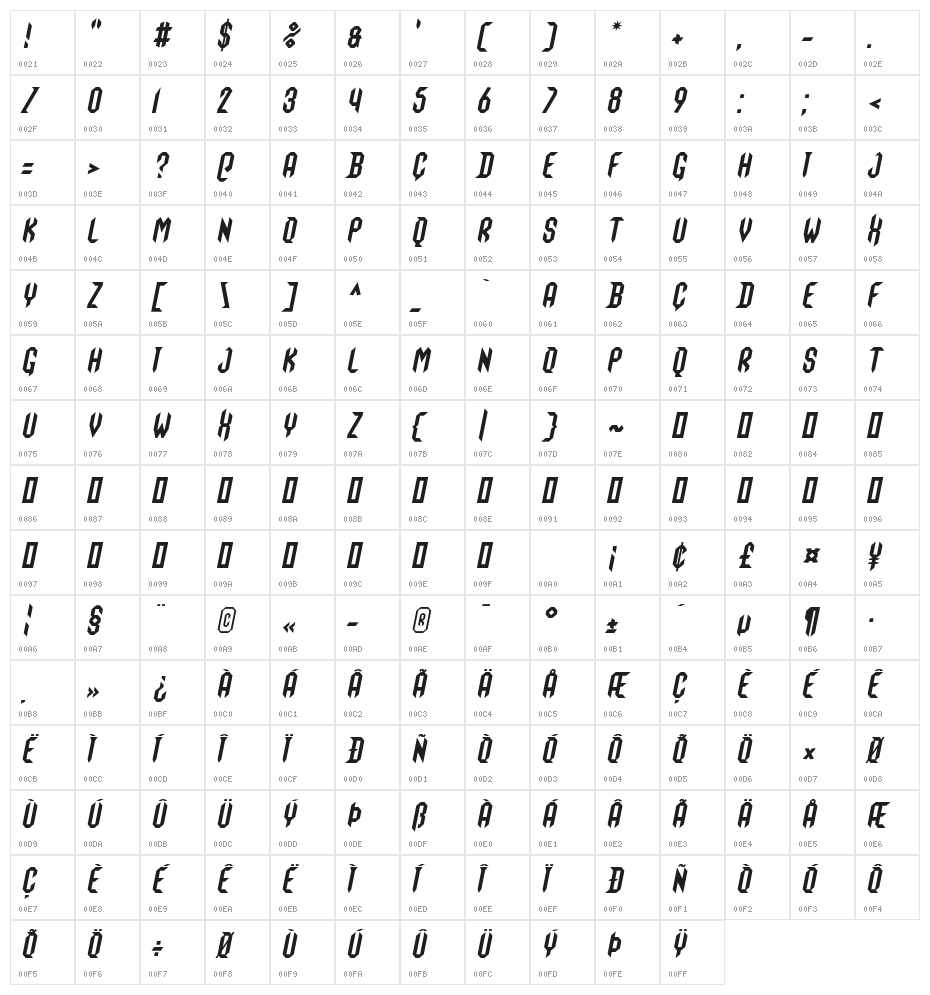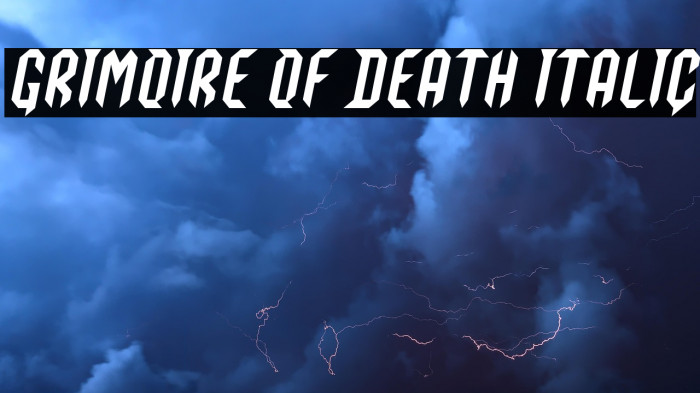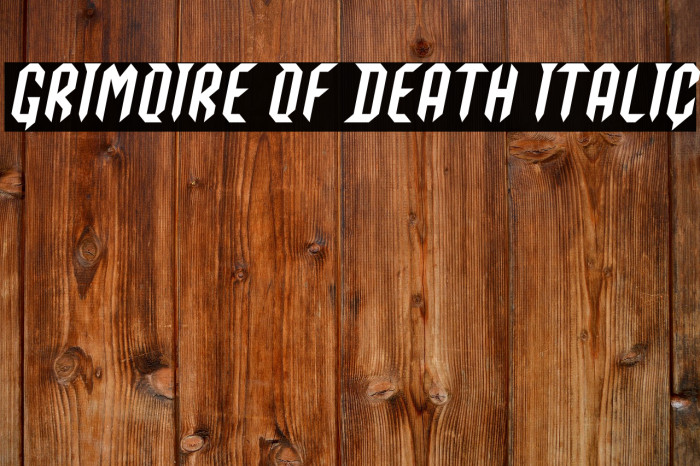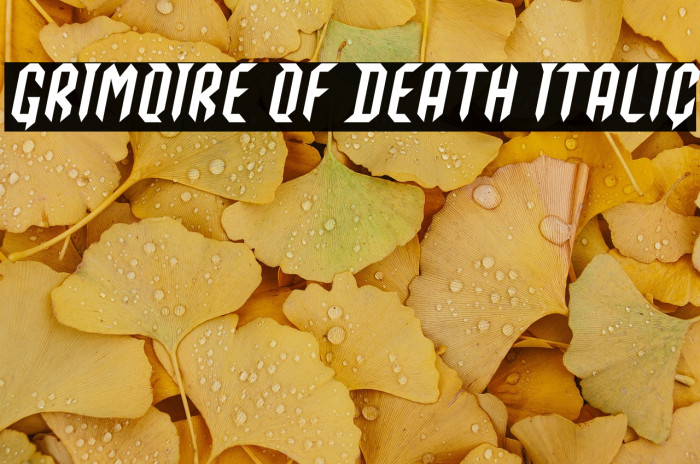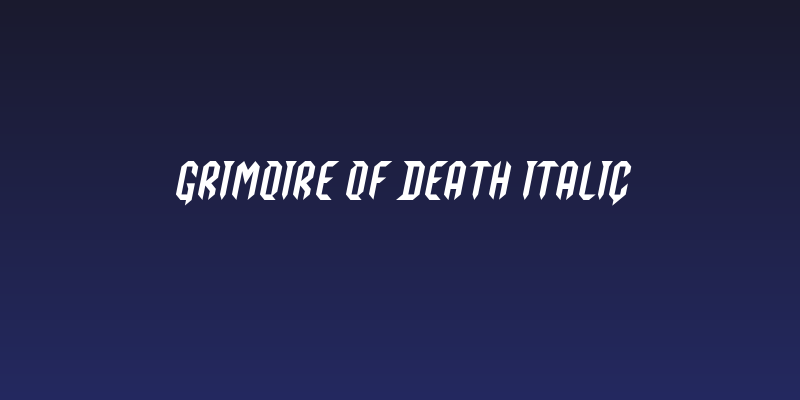
Grimoire Of Death Italic Font
Grimoire Of Death Italic Description
This font features a bold, angular design with sharp edges and a distinct italic slant, giving it a dynamic and aggressive appearance. The characters are tightly spaced, enhancing the compact and impactful look. The uppercase and lowercase letters maintain a consistent style, with a strong emphasis on vertical lines and diagonal strokes. Numbers and special characters follow the same angular theme, ensuring uniformity across all glyphs. The font's high contrast between thick and thin strokes adds to its striking visual presence, making it ideal for attention-grabbing designs.